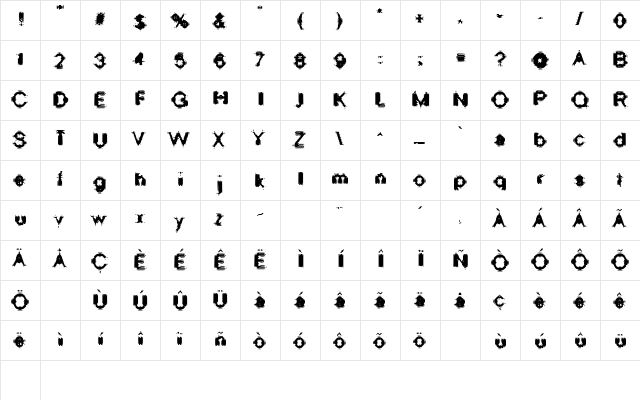
Oscillate Regular Font Preview
Oscillate Regular
Oscillate Regular Font Details
Design Context for Oscillate Typeface
Oscillate is a composed and adaptable typeface that performs quietly and consistently across a wide range of design contexts.
Pro Tip: Pair Oscillate with a font of contrasting weight or personality to build a more expressive typographic hierarchy.